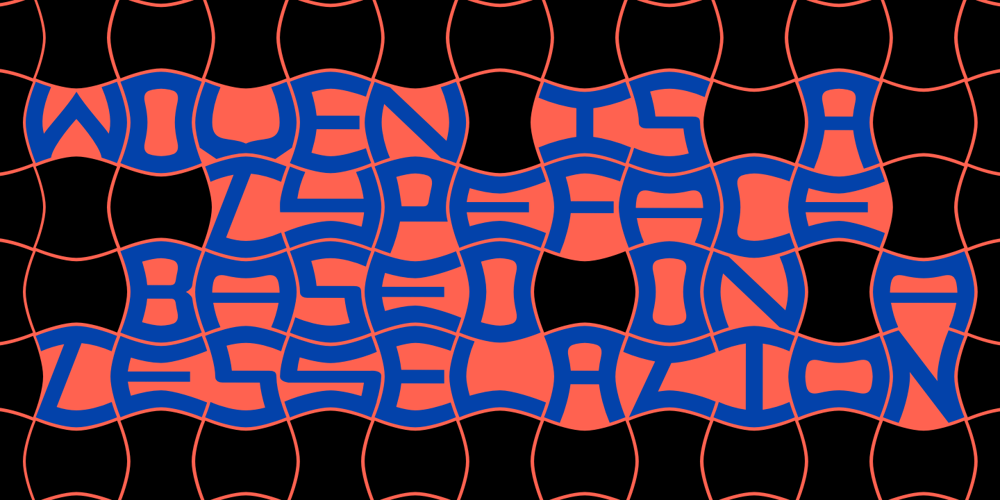
Woven
Woven font
Woven Font Family was designed by Robert Schenk and published by Ingrimayne Type. Woven contains 2 styles and family package options. Woven is a geometrical typeface based on a simple tessellation or tiling pattern. The template for the letters has both vertical and horizontal symmetry and the tiling pattern has four-fold rotational symmetry. Variations of this pattern are popular with quilters and most have a woven look to them. To fit the letters into the template results in some distorted letters but it is the pattern that matters, not the individual elements of that pattern. With proper spacing, a block of text will fit together both horizontally and vertically.Woven is intended to be used with alternating letter sets and the OpenType feature of contextual alternatives does this automatically in applications that support it. The upper-case could be used alone but it unlikely that the lower-case characters could be used by themselves. The typeface is hard to read and would make a challenging font for word-search puzzles.